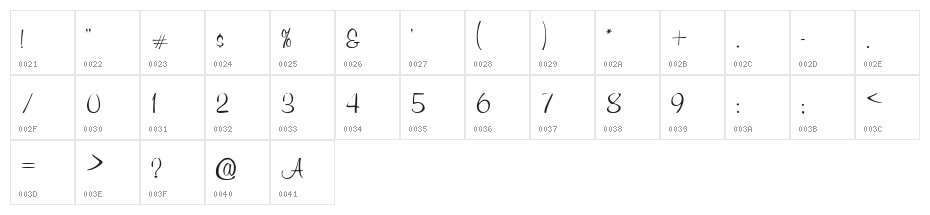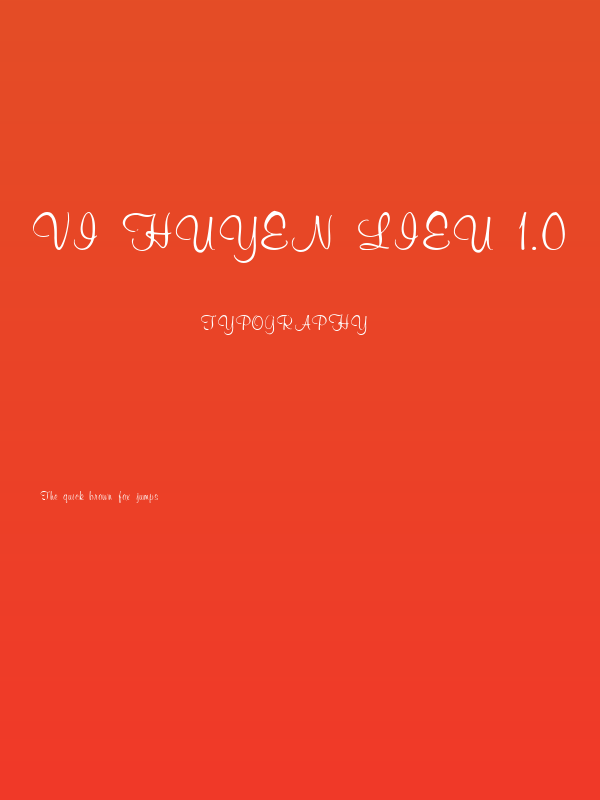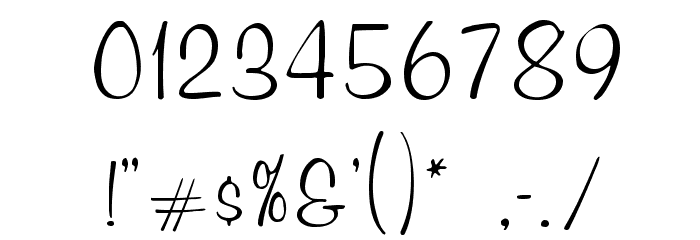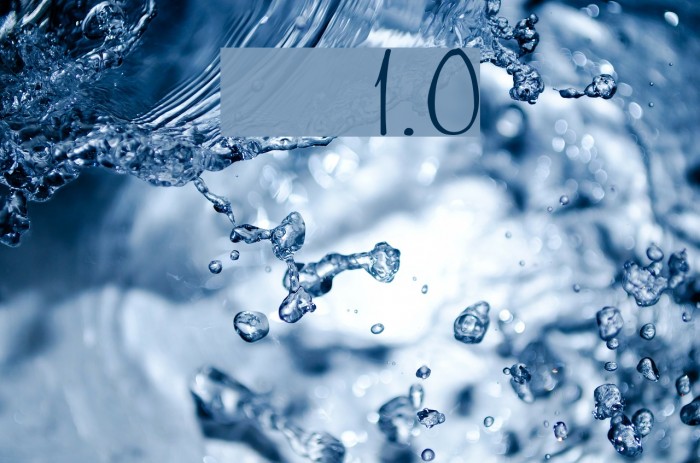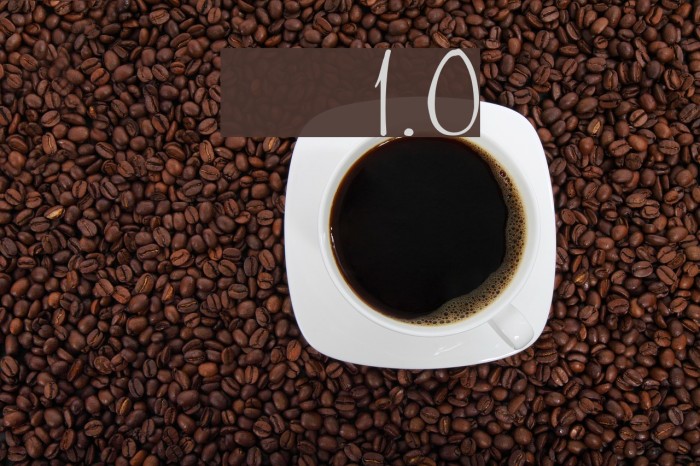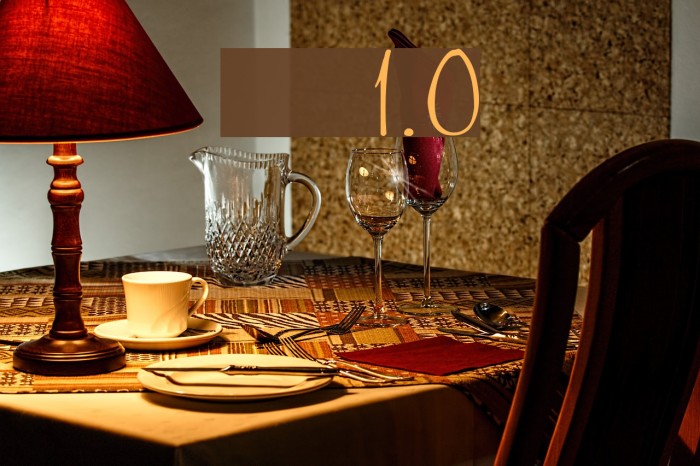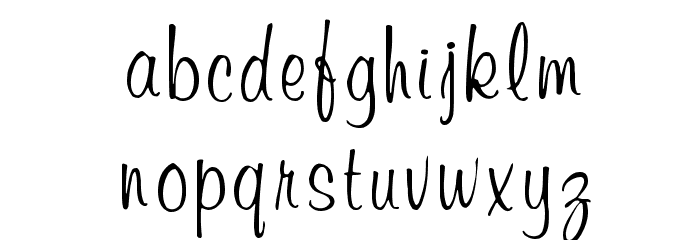
VI Huyen Lieu 1.0 Font
VI Huyen Lieu 1.0 Description
This elegant script font features a flowing, cursive style with smooth, rounded edges and a graceful, handwritten appearance. The uppercase letters are characterized by their sweeping curves and delicate loops, while the lowercase letters maintain a consistent fluidity, enhancing readability. The numerals are distinct and well-proportioned, complementing the overall aesthetic. Special characters are thoughtfully designed to match the font's elegant style, making it suitable for a variety of creative applications. The font's charm lies in its ability to convey sophistication and warmth, making it ideal for personal and professional projects alike.
| Overall Style | Elegant, Handwritten |
| Use Case | Logos, Invitations, Decorative text |
| Proposed Projects | Wedding invitations, greeting cards, branding, and elegant packaging design. |